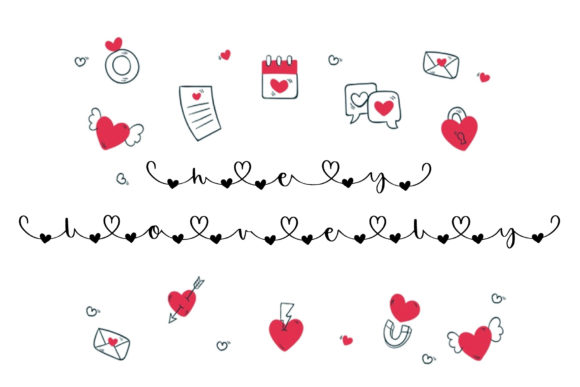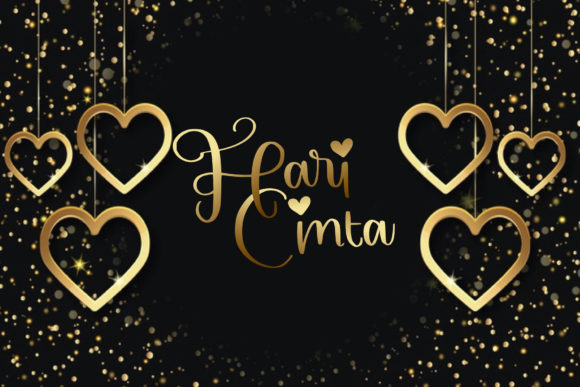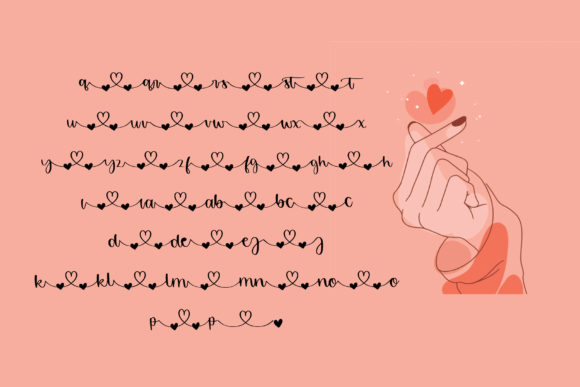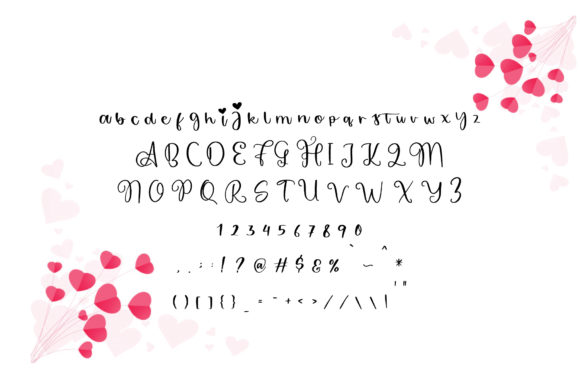
About Hey Lovely Font
Hey Lovely is a stunning handwritten font that exudes romance and beauty. With its delicate and flowing letterforms, this font adds a touch of elegance and charm to any design. Whether you’re using it for social media graphics, invitations, or DIY projects, Hey Lovely will elevate your creative ideas and make them truly captivating.
The romantic theme of Hey Lovely shines through its graceful strokes and intricate details. Each letter is carefully crafted to evoke a sense of love and tenderness. The font’s natural and organic style gives it a handcrafted look, adding a personal touch to your designs.
Hey Lovely is designed with versatility in mind. It can be used for various purposes, from creating eye-catching social media posts to crafting beautiful wedding invitations or heartfelt love letters. The font’s PUA encoding allows you to access all of the glyphs and swashes effortlessly, providing you with endless possibilities to customize and embellish your text.
The flowing and connected nature of Hey Lovely’s letterforms creates a sense of continuity and rhythm, enhancing the overall visual appeal. The varying line thickness and subtle flourishes add a touch of sophistication and whimsy, making Hey Lovely suitable for both formal and informal designs.
When used in social media graphics, Hey Lovely can help you create visually appealing and engaging posts that stand out from the crowd. Its romantic theme and elegant style make it perfect for sharing love quotes, inspiring messages, or announcing special occasions with a touch of romance.
For wedding-related designs, Hey Lovely adds a touch of elegance and sophistication. Whether you’re designing wedding invitations, save-the-date cards, or wedding signage, this font brings a sense of romance and beauty to your designs, setting the perfect tone for a memorable event.
In DIY projects, Hey Lovely allows you to unleash your creativity. Whether you’re designing personalized gifts, handmade cards, or home decor items, this font adds a special touch of artistry and beauty. Its versatility and charm make it a go-to choice for adding a romantic flair to your handmade creations.
In conclusion, Hey Lovely is a beautiful handwritten font that embodies romance and elegance. Its versatility and PUA encoding make it a convenient choice for a wide range of design projects, allowing you to express your creativity and create stunning pieces of art. Use Hey Lovely to add a touch of love and beauty to your designs and captivate your audience with its enchanting style.